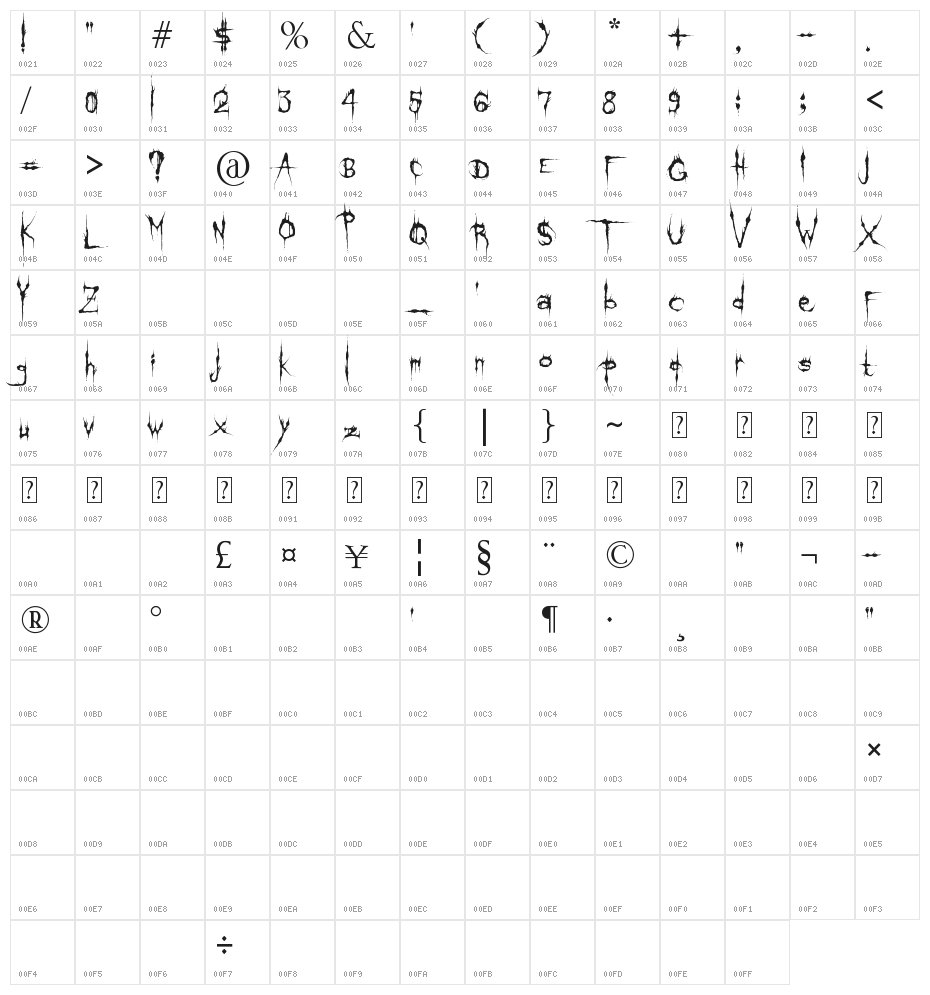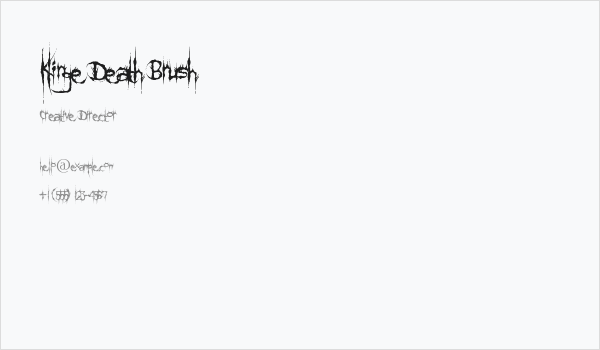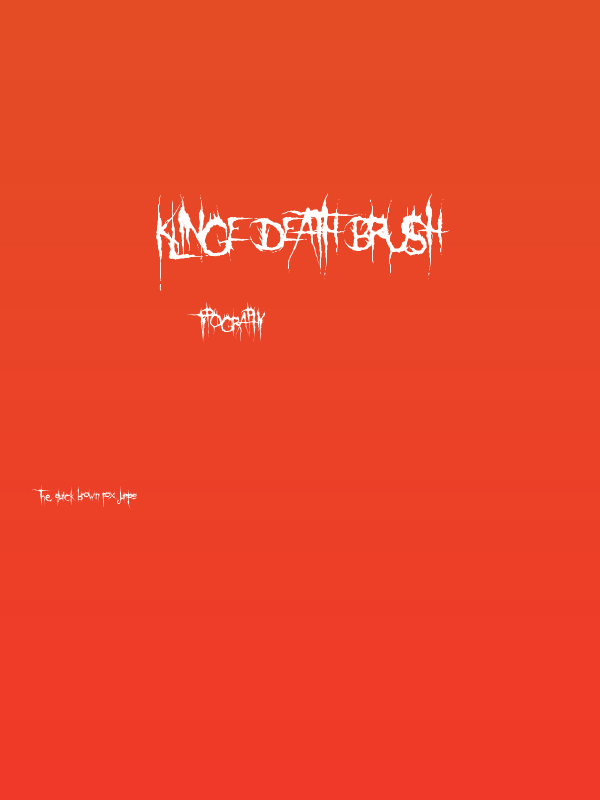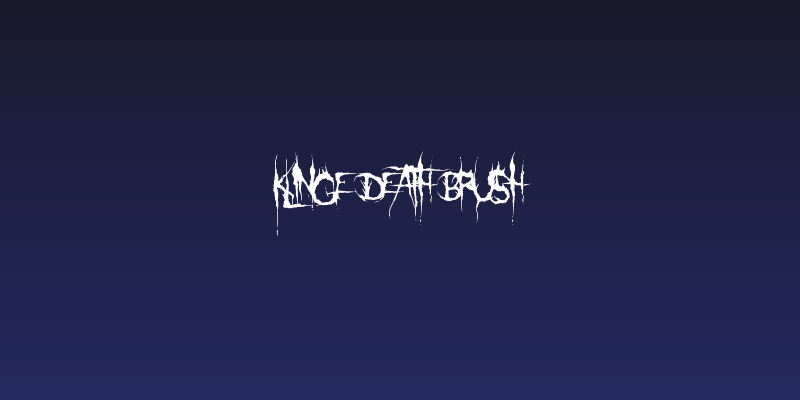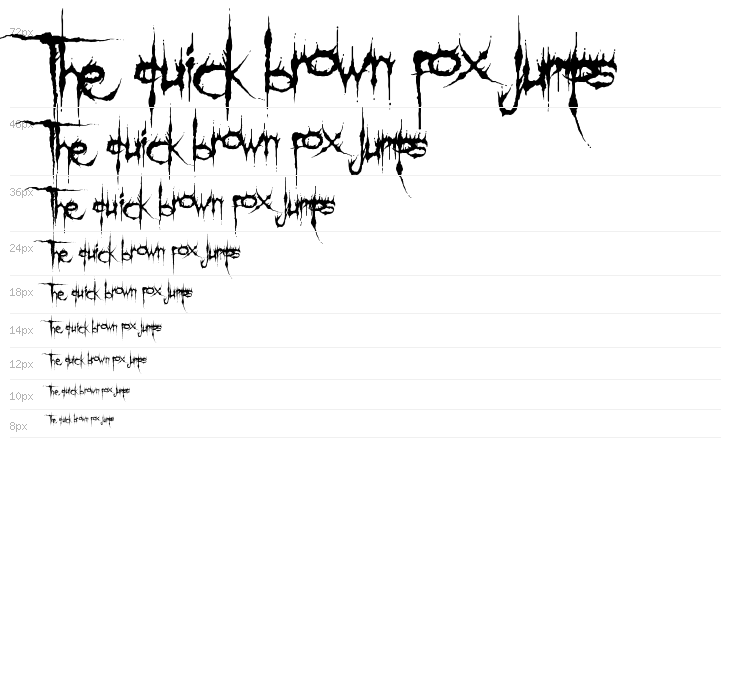
Klinge Death Brush Font
Klinge Death Brush Description
This font exudes a dark, edgy aesthetic with its sharp, jagged edges and dripping brushstroke style. Each character appears as though it has been scratched or carved, giving it a raw, intense appearance. The uneven lines and chaotic structure create a sense of movement and energy, making it ideal for projects that require a bold, rebellious statement. The font's unique design is reminiscent of horror or metal music themes, with a gritty, distressed look that stands out. Its intricate details and high contrast between thick and thin strokes add to its dramatic impact.
| Use Case | Logos, Headlines |
| Proposed Projects | Perfect for horror movie posters, metal band logos, Halloween event flyers, or any project needing a bold, rebellious aesthetic. |